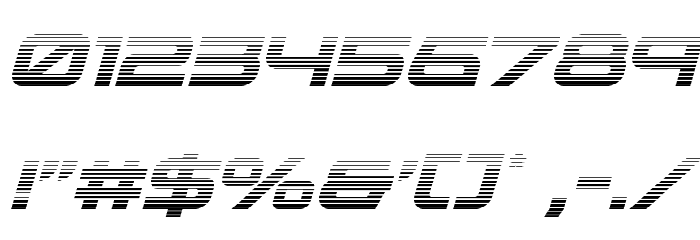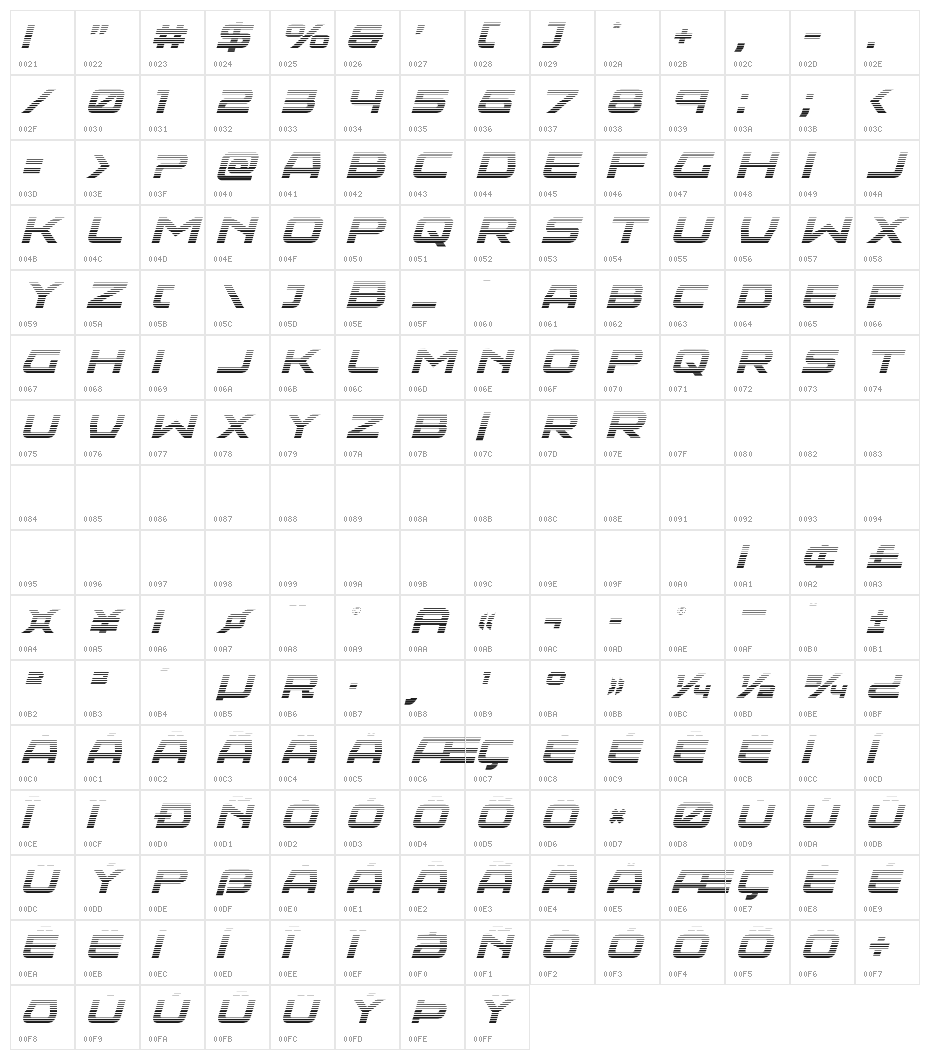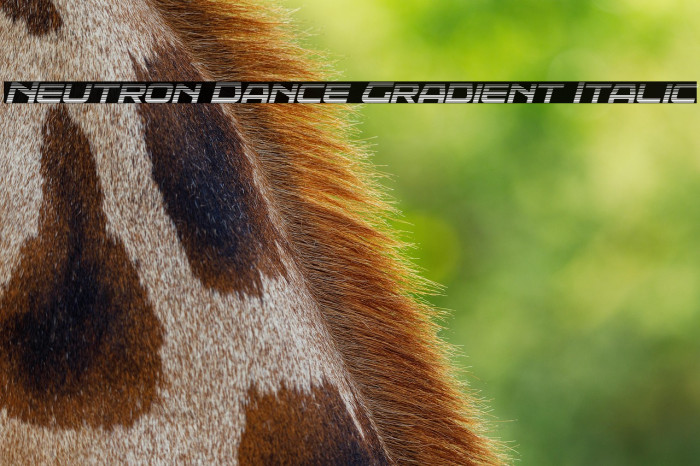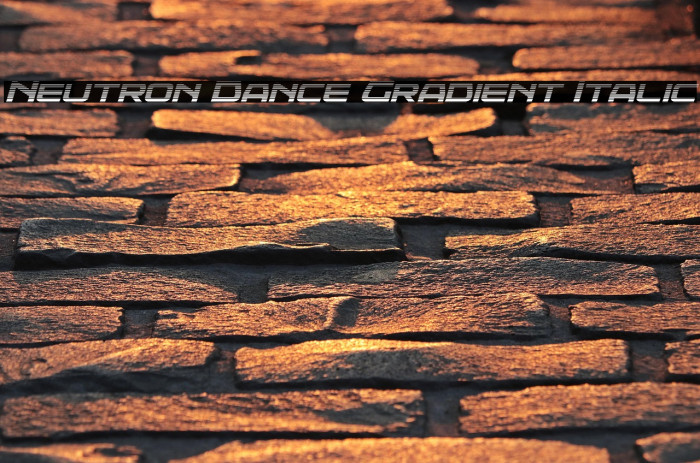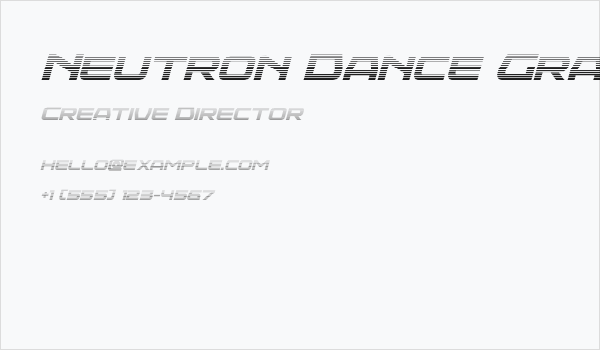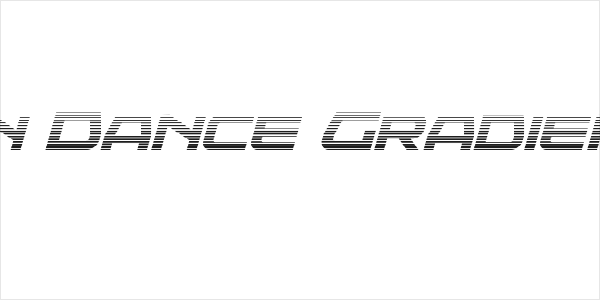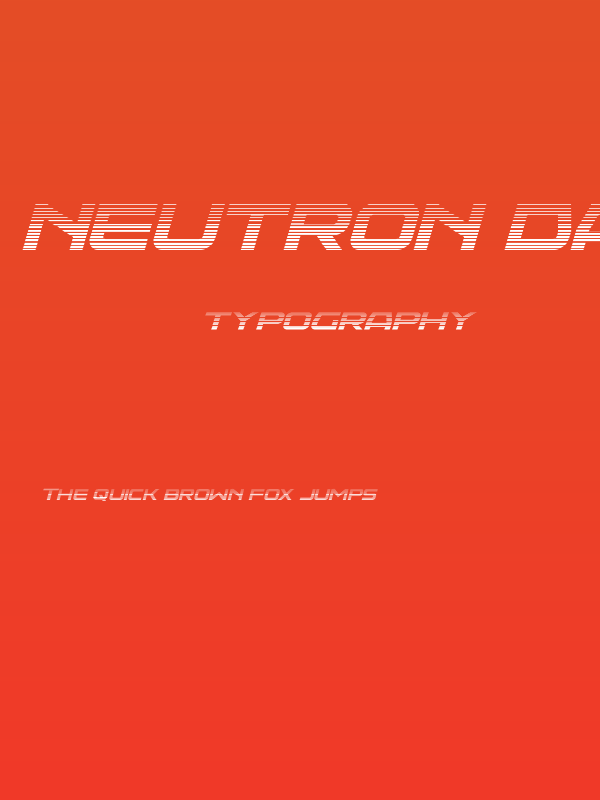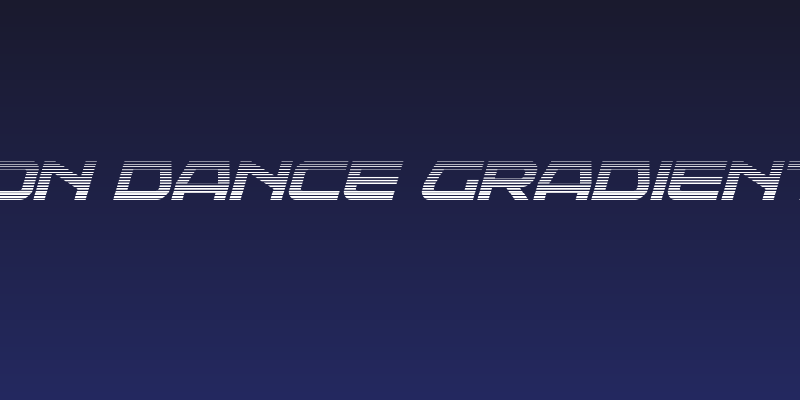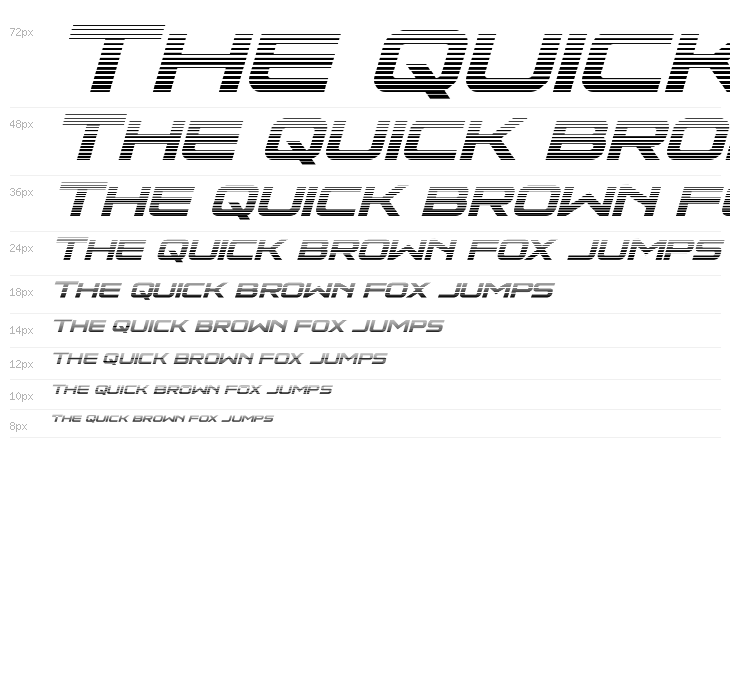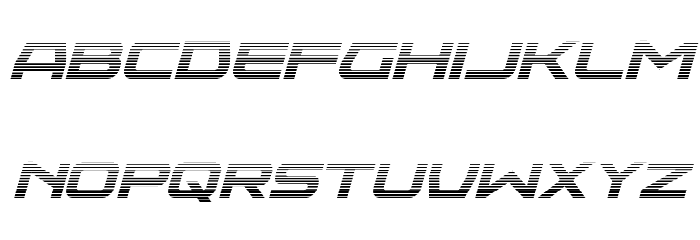
Neutron Dance Gradient Italic Font
Neutron Dance Gradient Italic Description
This font features a futuristic and dynamic design, characterized by its italicized, gradient-striped appearance. Each character is composed of horizontal lines that create a sense of motion and speed, making it ideal for projects that require a modern and energetic feel. The uppercase and lowercase letters, as well as numbers and special characters, maintain a consistent style that emphasizes angularity and precision. The font's unique design elements make it stand out, offering a visually striking option for creative and bold applications.
| Proposed Projects | Ideal for sci-fi themed designs, tech branding, video game titles, and dynamic posters. |